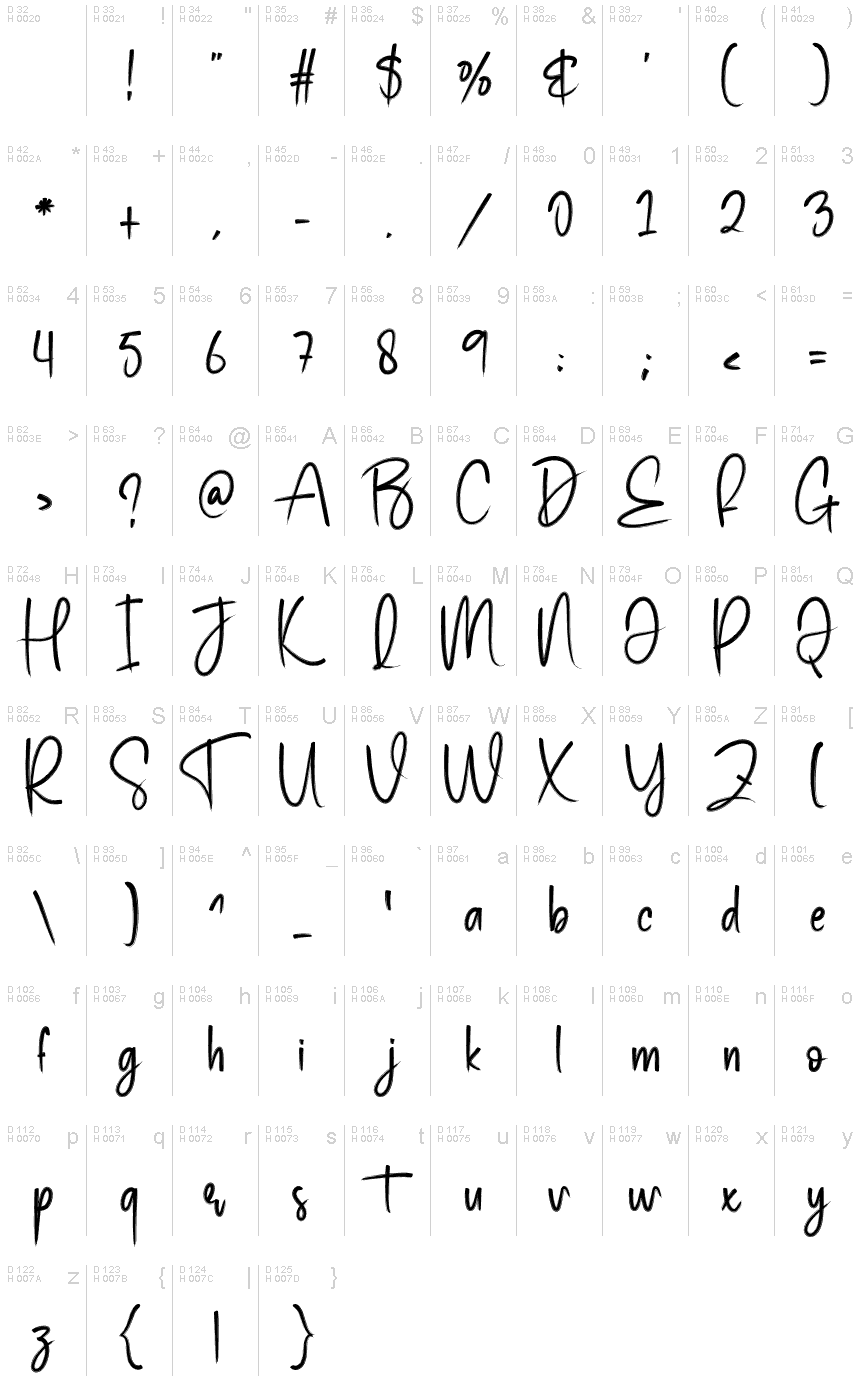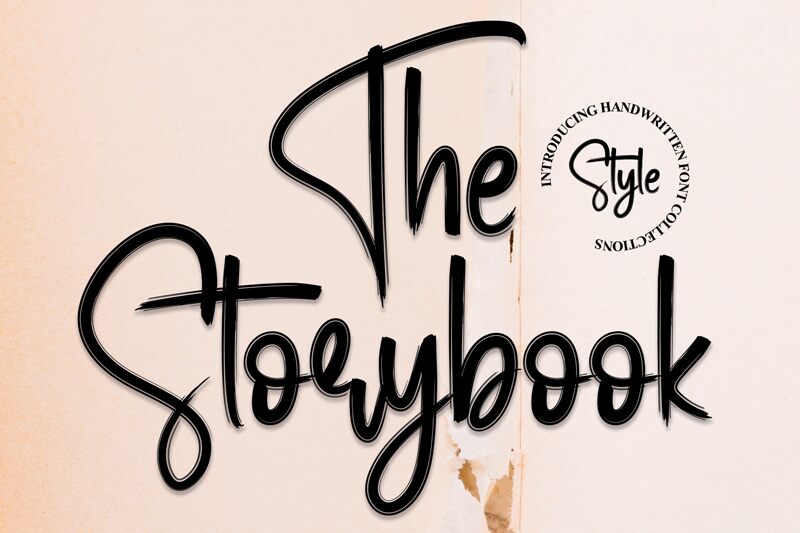
The Storybook
The Storybook, designed by Scratchones, is a handwritten font that exudes charm and personality. Its semi-light weight gives it a delicate yet confident presence on the page, inviting readers into a world crafted with care. The fluidity of its characters suggests a natural ease, reminiscent of elegant cursive writing found in cherished personal letters and bespoke invitations.
With its unique blend of casual flair and sophisticated strokes, The Storybook is versatile enough to enhance a variety of creative projects. Whether it's branding for artisanal businesses, evocative book covers, or whimsical event stationery, this font brings an authentic touch that resonates with audiences looking for something truly special.
Embrace the aesthetic appeal of The Storybook to tell your own captivating tales through design that feels both intimate and inspired.